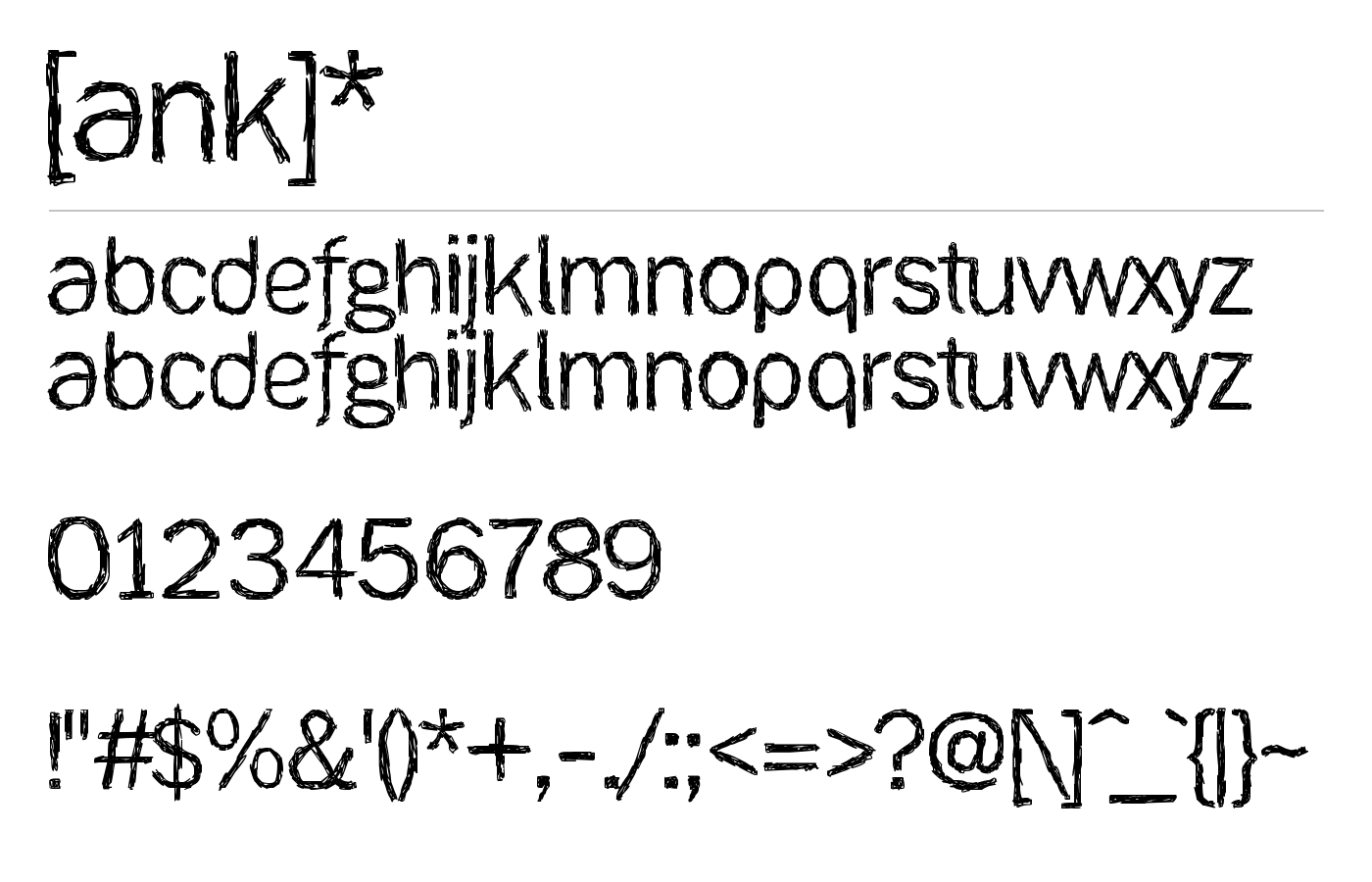
[ank]* is a quirky, hand-drawn sans serif font with a lively, sketchy texture that gives it a casual and creative feel. Its irregular strokes and playful imperfections make it ideal for informal and artistic uses, adding personality and charm to designs. This font works well for branding, posters, and projects seeking a fun, approachable vibe.
[ank]* Font